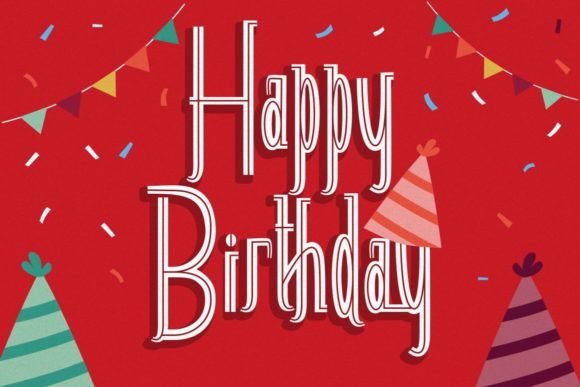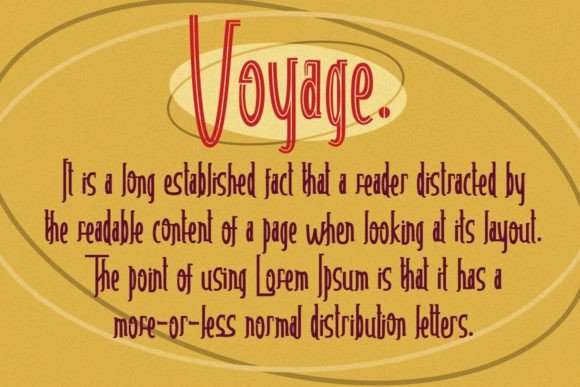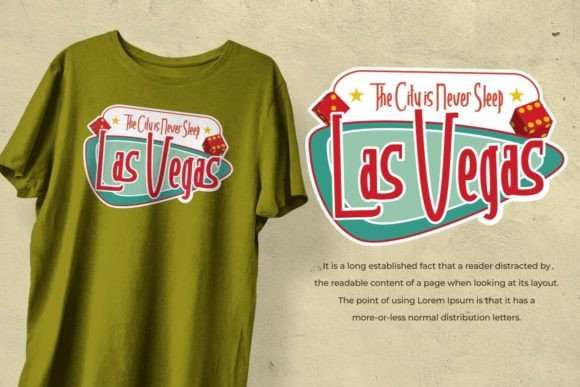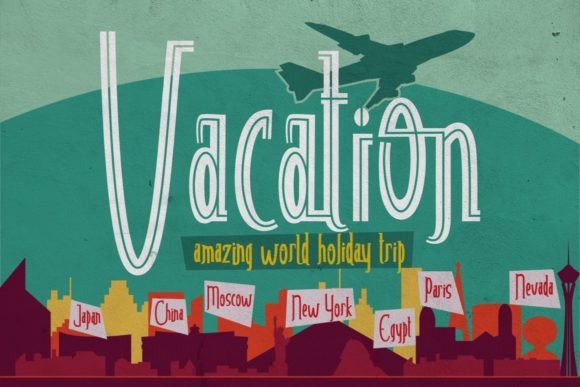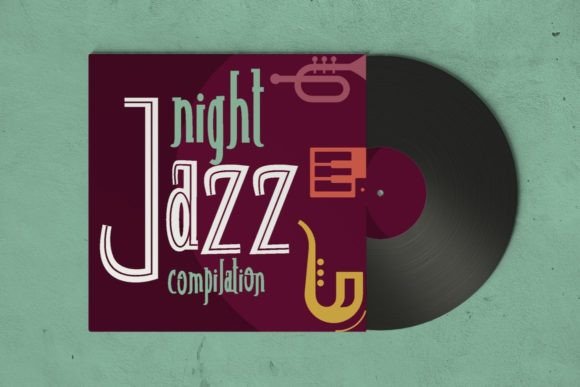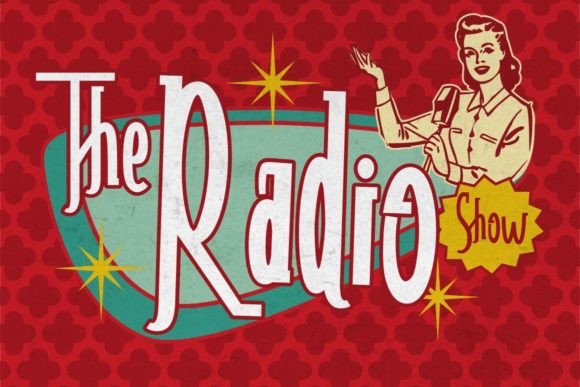
Introducing Double Frames Font: Elevate Your Designs with a Cool and Fun Display Font
Are you tired of using the same old fonts in your designs? Look no further! Double Frames Font is here to take your creative projects to the next level. This masterfully designed display font is not only cool and fun but also packed with features that make it a true favorite among designers and crafters.
What Makes Double Frames Font Stand Out?
Double Frames Font is a unique and stylish addition to any design project. Its double-frame design gives it a distinctive look that’s sure to grab attention. Whether you’re working on a logo, poster, or social media graphic, this font is sure to make your design stand out from the crowd.
One of the key features that sets Double Frames Font apart is its PUA (Private Use Area) encoding. This means that you can access all the glyphs and ligatures with ease, giving you complete creative control over your design. With PUA encoding, you can easily insert special characters, swashes, and other unique elements that will take your design to the next level.
The Benefits of Using Double Frames Font
So, what are the benefits of using Double Frames Font in your designs? Here are just a few:
- Unique and eye-catching design: Double Frames Font is sure to grab attention and make your design stand out.
- Ease of use: With PUA encoding, you can access all the glyphs and ligatures with ease, making it simple to create stunning designs.
- Versatility: Double Frames Font is perfect for a wide range of design projects, from logos and posters to social media graphics and more.
- High-quality design: This font has been masterfully designed to ensure that it looks great in any design project.
Who Can Benefit from Using Double Frames Font?
Double Frames Font is perfect for a wide range of designers and crafters, including:
- Graphic designers: Whether you’re working on a logo, poster, or social media graphic, Double Frames Font is a great addition to your design toolkit.
- Crafters: If you’re creating handmade cards, scrapbook pages, or other craft projects, Double Frames Font is a great way to add a personal touch.
- Sign makers: Double Frames Font is perfect for creating eye-catching signs and displays.
- Social media influencers: Use Double Frames Font to create stunning social media graphics that will help you stand out from the crowd.
Tips for Getting the Most Out of Double Frames Font
Here are a few tips for getting the most out of Double Frames Font:
- Experiment with different colors and textures: Double Frames Font looks great in a wide range of colors and textures, so don’t be afraid to get creative.
- Use it in combination with other fonts: Double Frames Font pairs well with a wide range of other fonts, so try combining it with other fonts to create a unique look.
- Take advantage of PUA encoding: With PUA encoding, you can access all the glyphs and ligatures with ease, so be sure to take advantage of this feature.
Double Frames Font is a cool and fun display font that’s perfect for designers and crafters who want to take their creative projects to the next level. With its unique double-frame design and PUA encoding, this font is sure to become a true favorite. Whether you’re working on a logo, poster, or social media graphic, Double Frames Font is a great addition to your design toolkit.